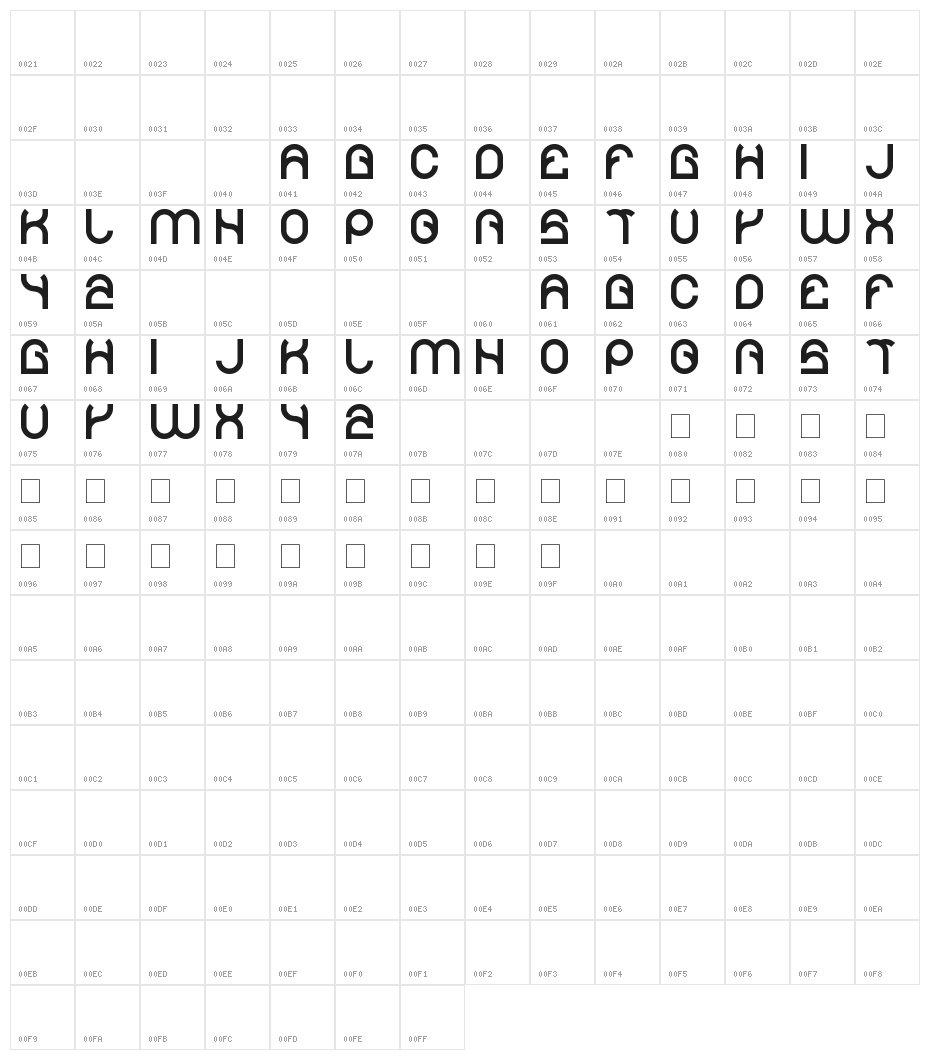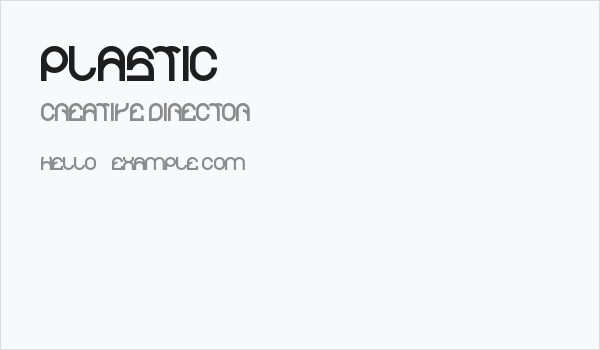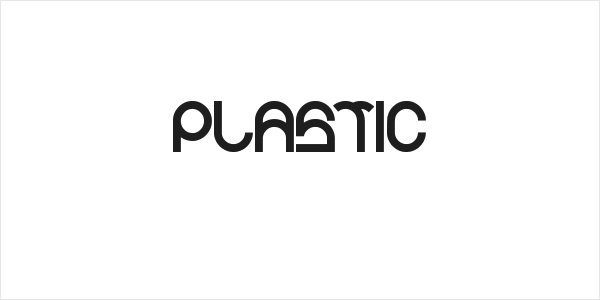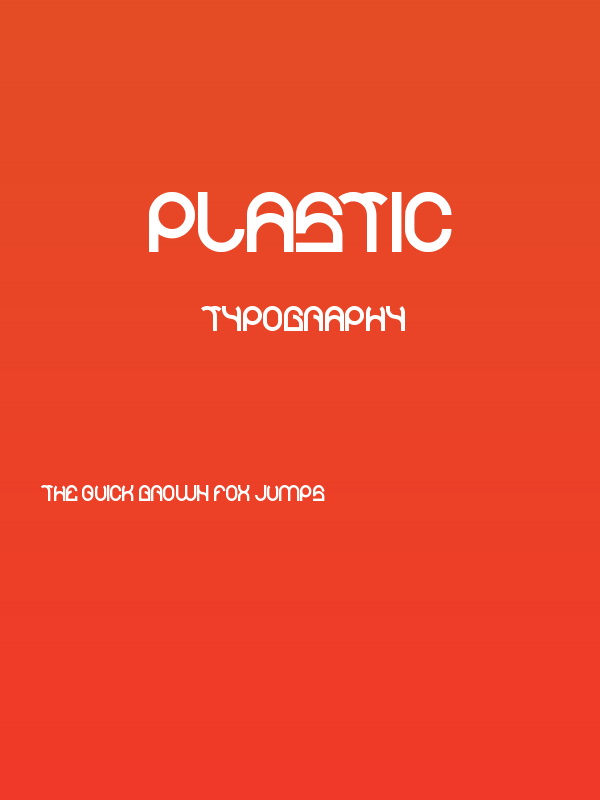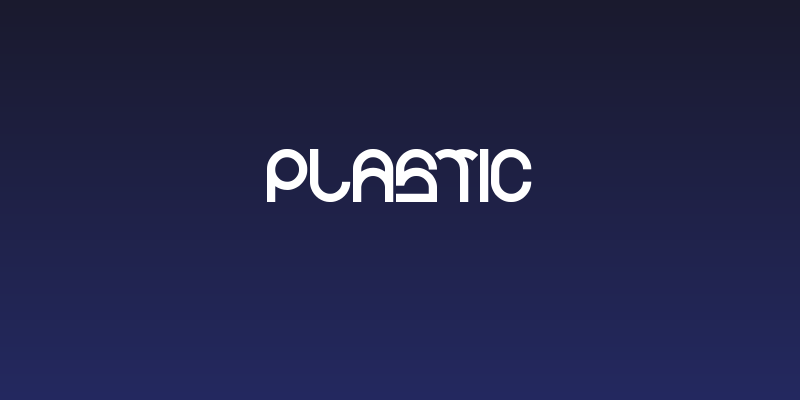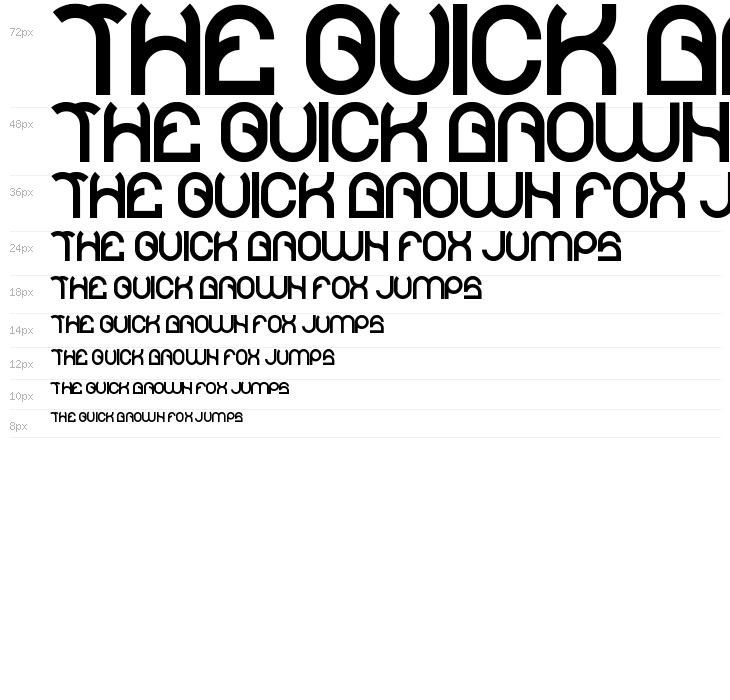
Plastic Font
Plastic Description
This font features a futuristic and geometric design, characterized by its bold and uniform stroke weight. The letters are crafted with a unique blend of curves and angles, giving it a modern and tech-inspired appearance. The uppercase letters are particularly striking, with a consistent height and width that create a cohesive look. The lowercase letters maintain the same style, ensuring readability while preserving the font's distinctive aesthetic. The numerals and special characters are designed to match the overall style, making this font versatile for various applications.
| Proposed Projects | Ideal for technology branding, sci-fi posters, video game titles, and modern digital interfaces. |